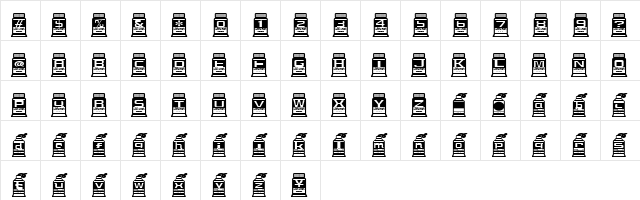
iJifutex Regular
Design Context for iJifutex Typeface
iJifutex is a composed and adaptable typeface that performs quietly and consistently across a wide range of design contexts.